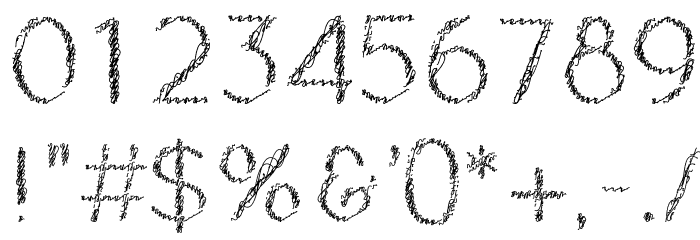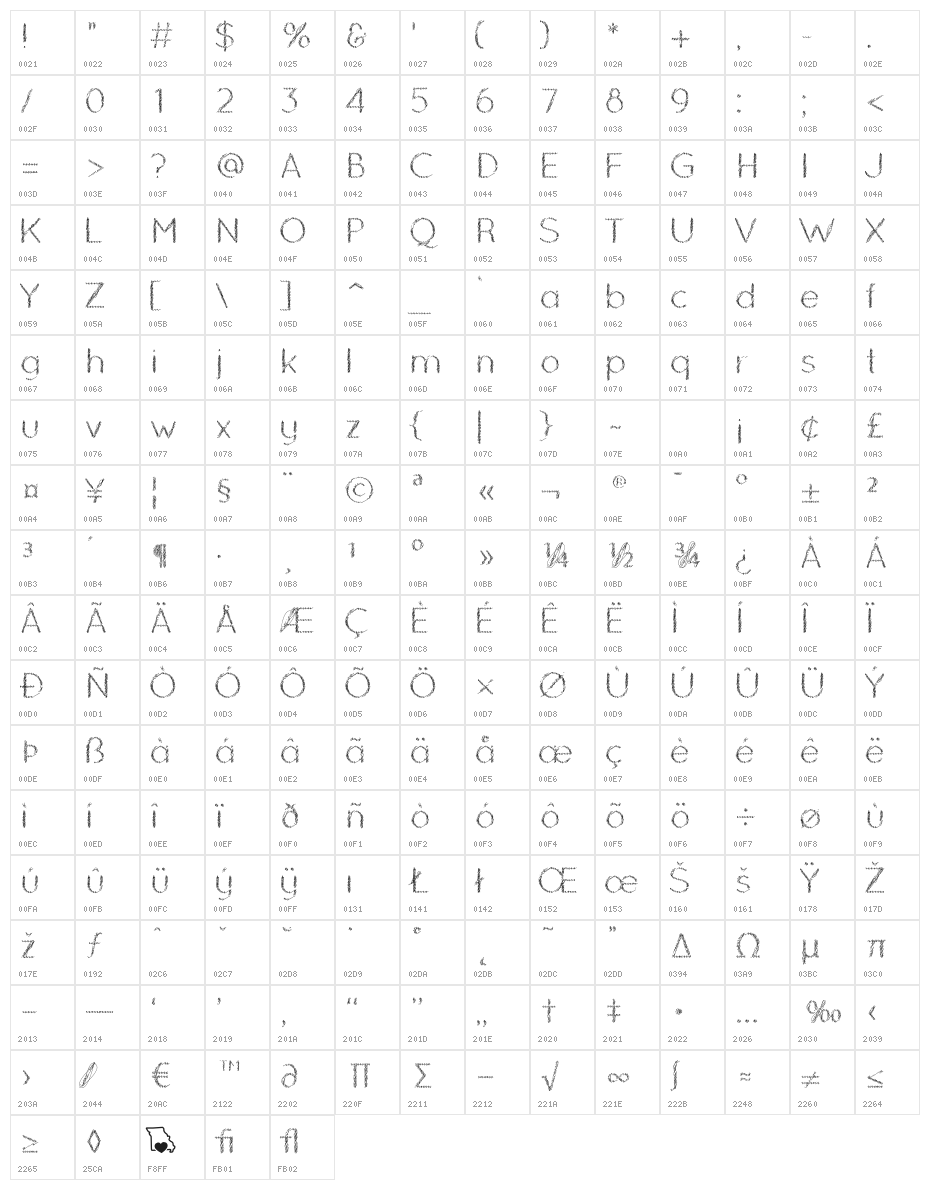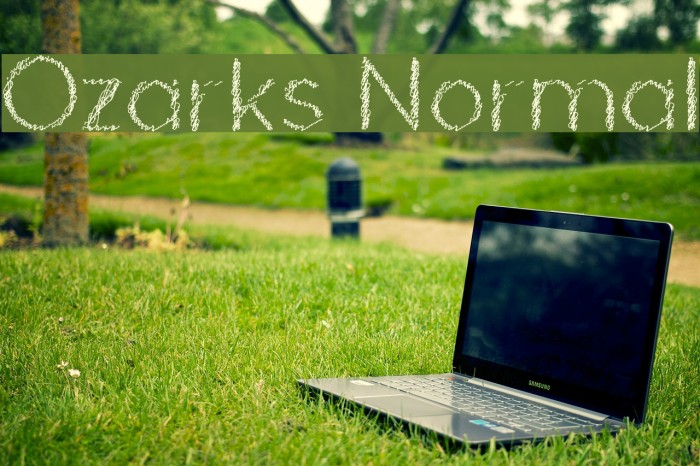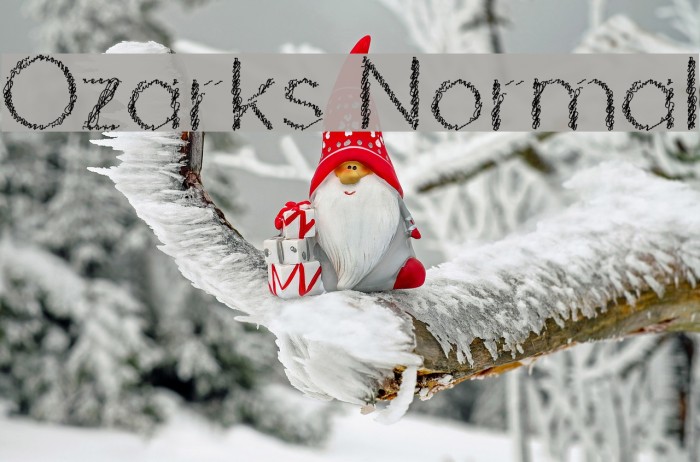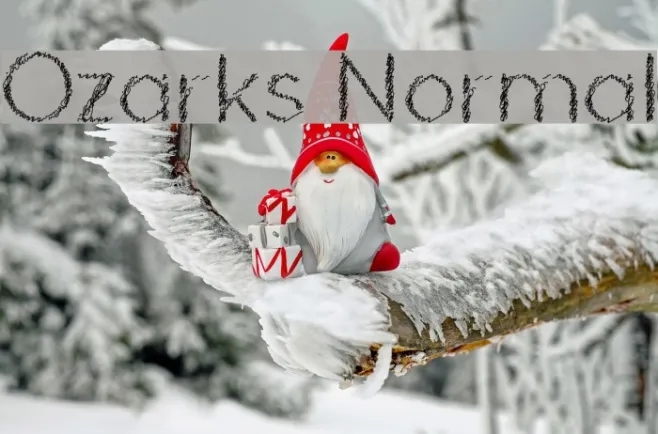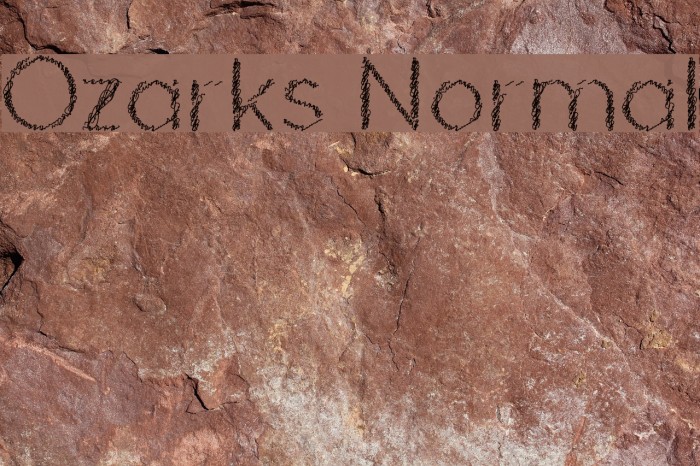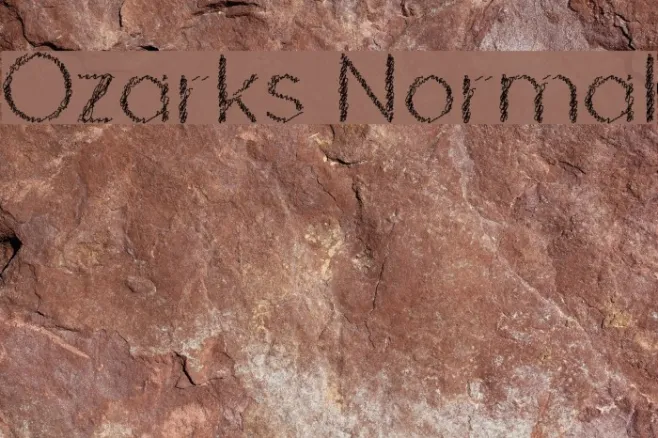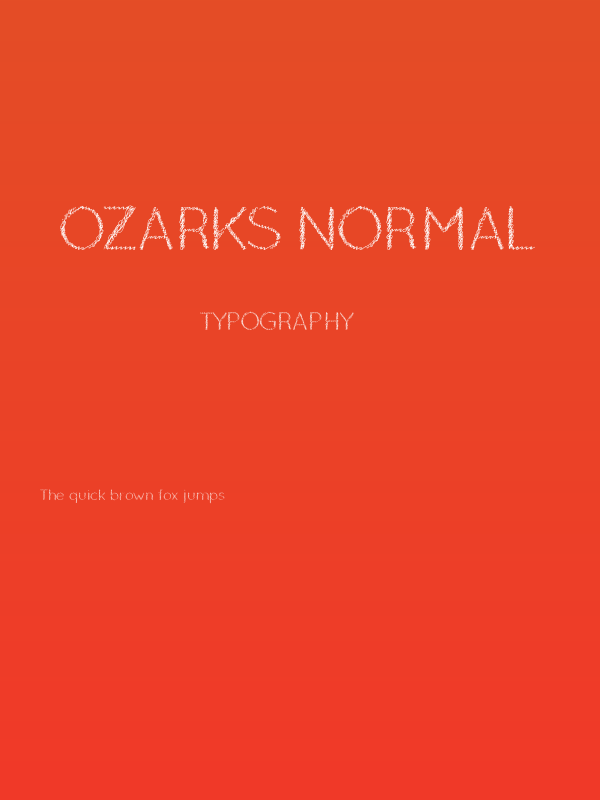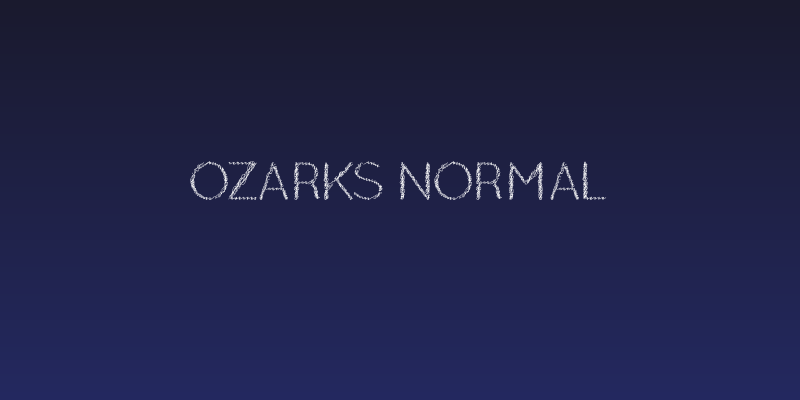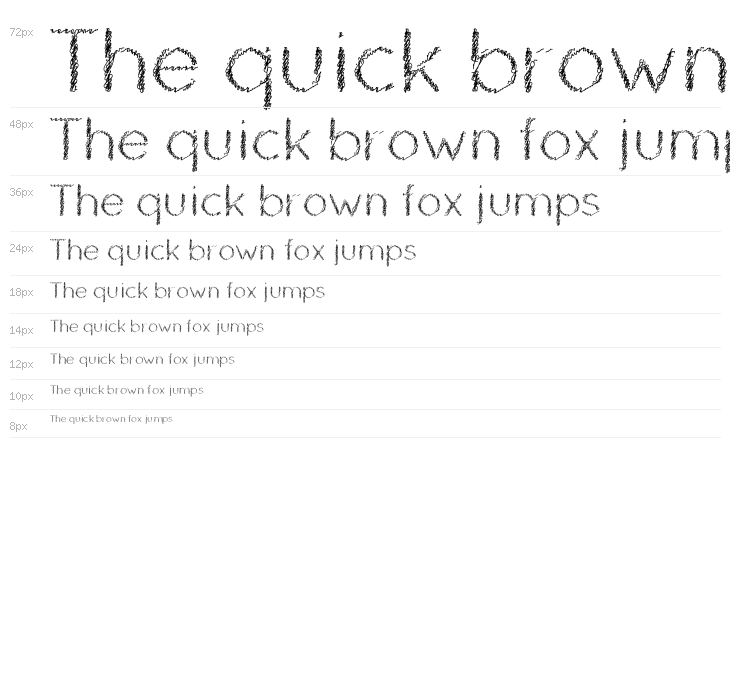
Ozarks Normal Font
Ozarks Normal Description
This font features a unique, textured appearance that resembles hand-drawn or sketched lettering. The characters have a playful and artistic quality, with irregular strokes that give them a dynamic and lively feel. Each letter is distinct, with varying line thicknesses that create a sense of movement and energy. The font maintains legibility despite its decorative style, making it suitable for creative projects that require a touch of whimsy. The numbers and special characters are consistent with the alphabet, maintaining the same textured and sketch-like quality.
| Proposed Projects | Ideal for artistic projects, children's book covers, creative posters, and branding that seeks a hand-drawn aesthetic. |